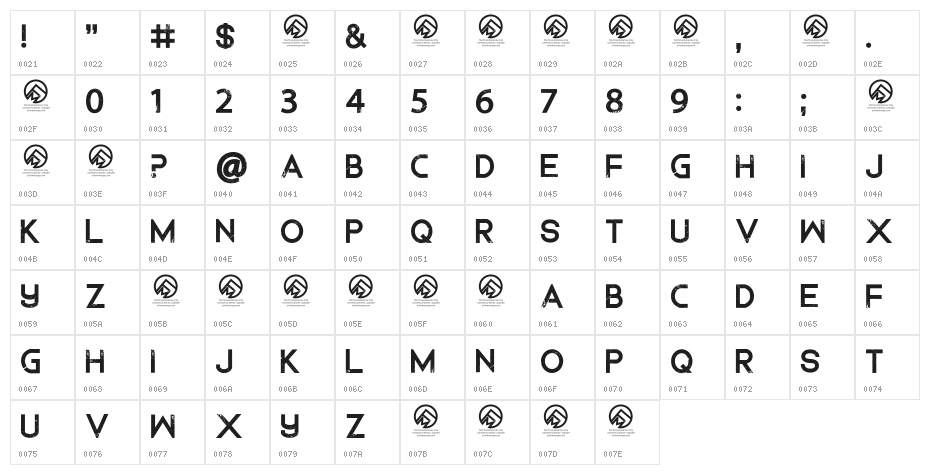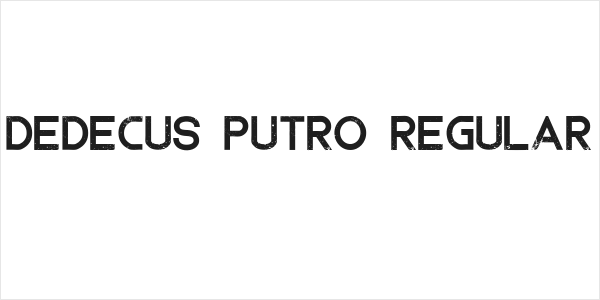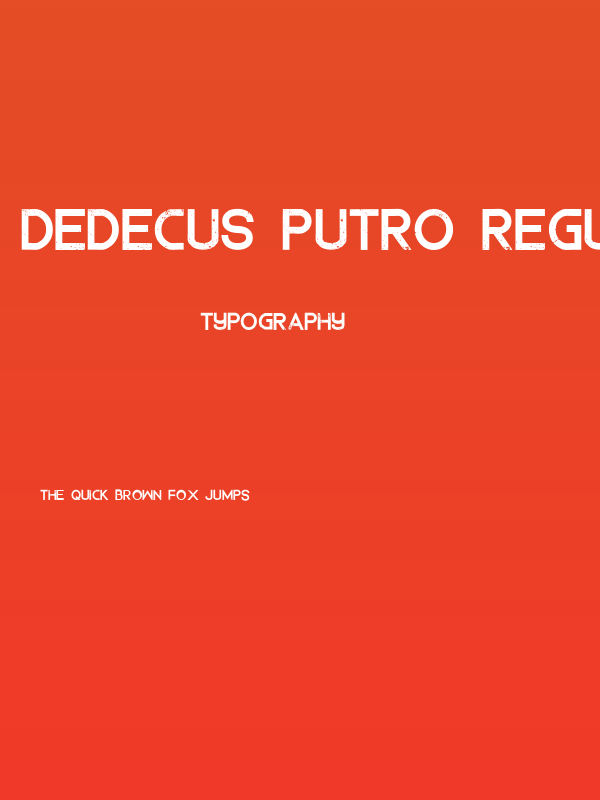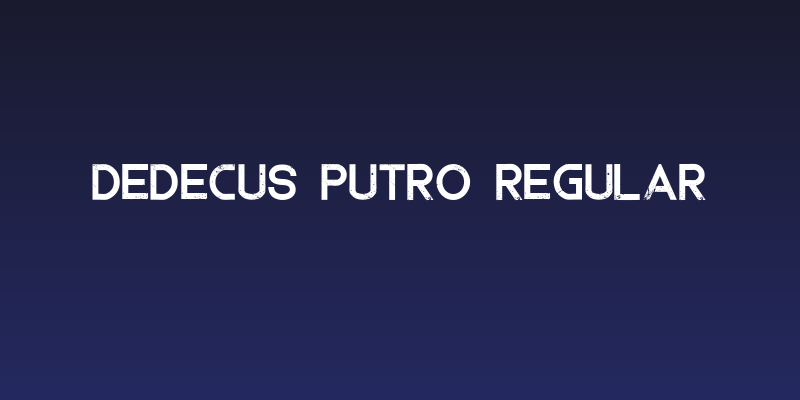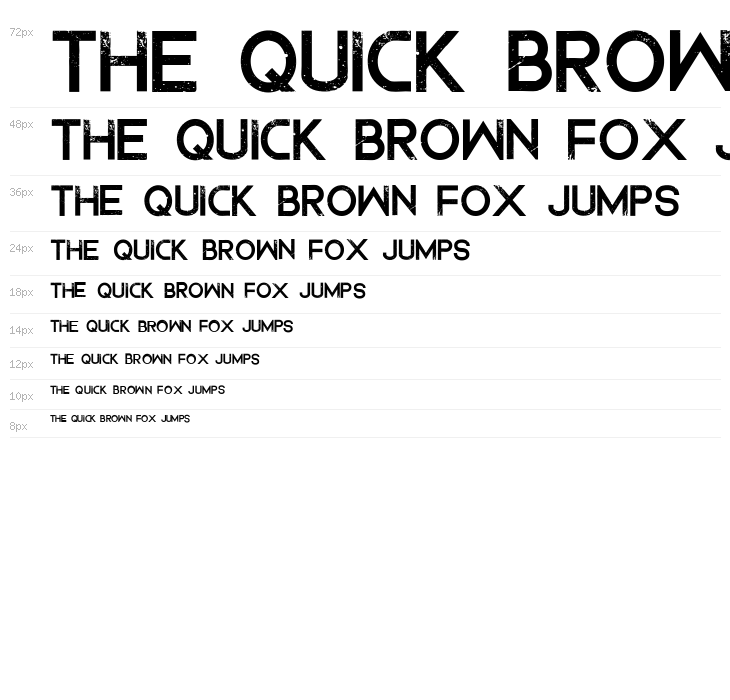
Dedecus Putro Regular Font
Dedecus Putro Regular Description
This font features a bold and distressed style, characterized by its rough, textured appearance that gives it a grunge or vintage feel. The uppercase and lowercase letters are consistent in their rugged design, with each character displaying a unique pattern of wear and tear. The numerals and special characters follow the same aesthetic, ensuring a cohesive look across all text elements. The font's boldness and distinctive style make it stand out, perfect for projects that require a strong visual impact.
| Proposed Projects | Ideal for posters, album covers, branding, and any design requiring a bold, edgy look. |